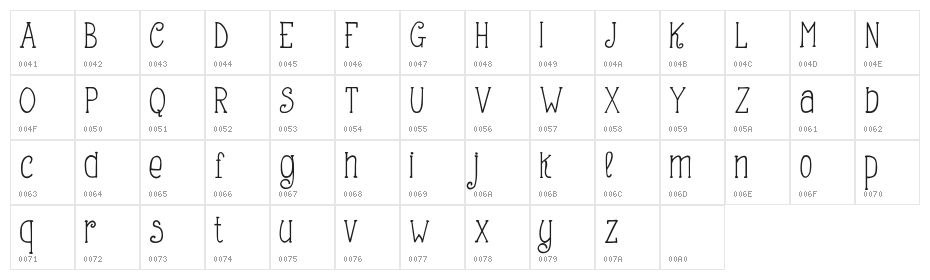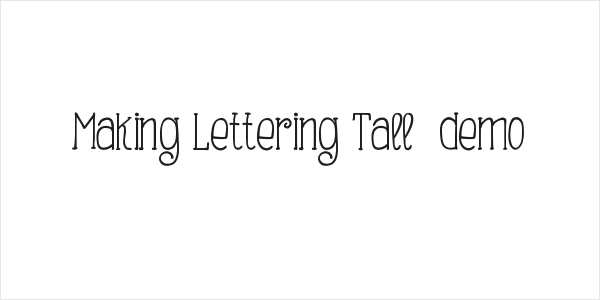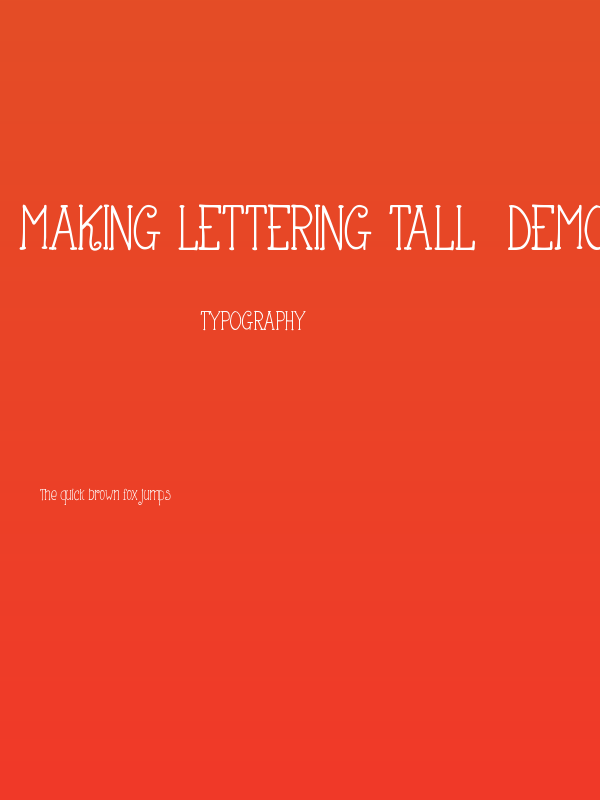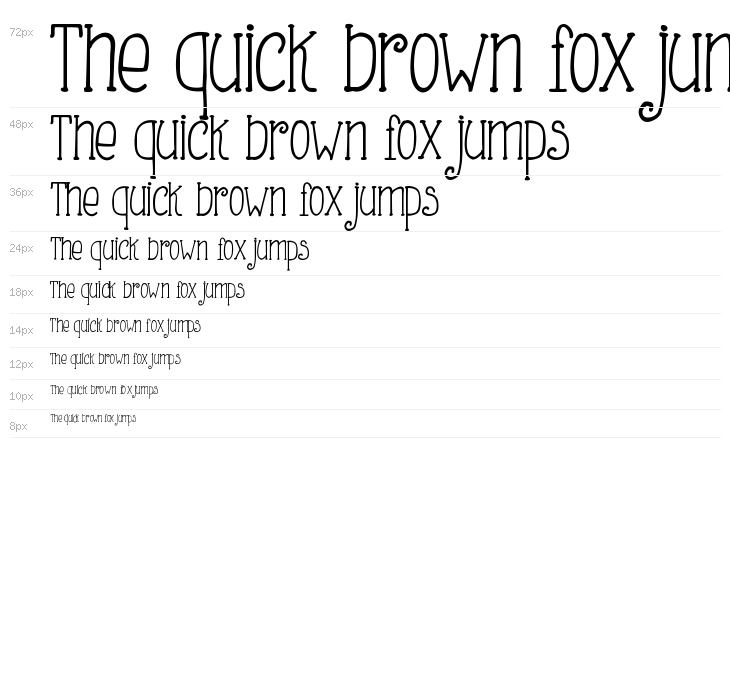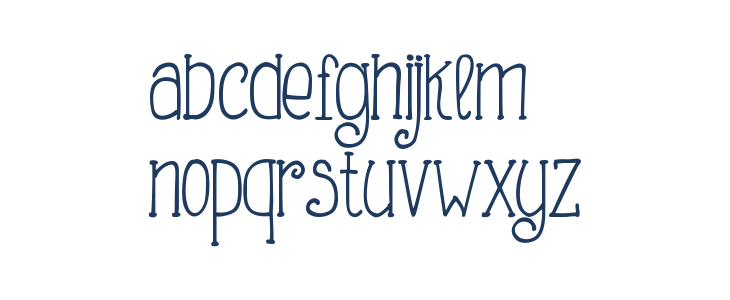
Making Lettering Tall_demo Font
Making Lettering Tall_demo Description
This font features a playful and whimsical design with tall, slender characters that have a hand-drawn appearance. The letters are characterized by their elongated forms and subtle curls at the ends, giving them a unique and artistic flair. The uppercase and lowercase letters maintain a consistent style, with a slight variation in stroke width that adds to the font's charm. The numbers and special characters are designed to match the overall aesthetic, making this font suitable for creative and informal projects.
| Overall Style | Playful and Artistic |
| Use Case | Headlines, Logos, Creative Projects |
| Proposed Projects | Ideal for greeting cards, children's books, playful branding, and creative posters. |